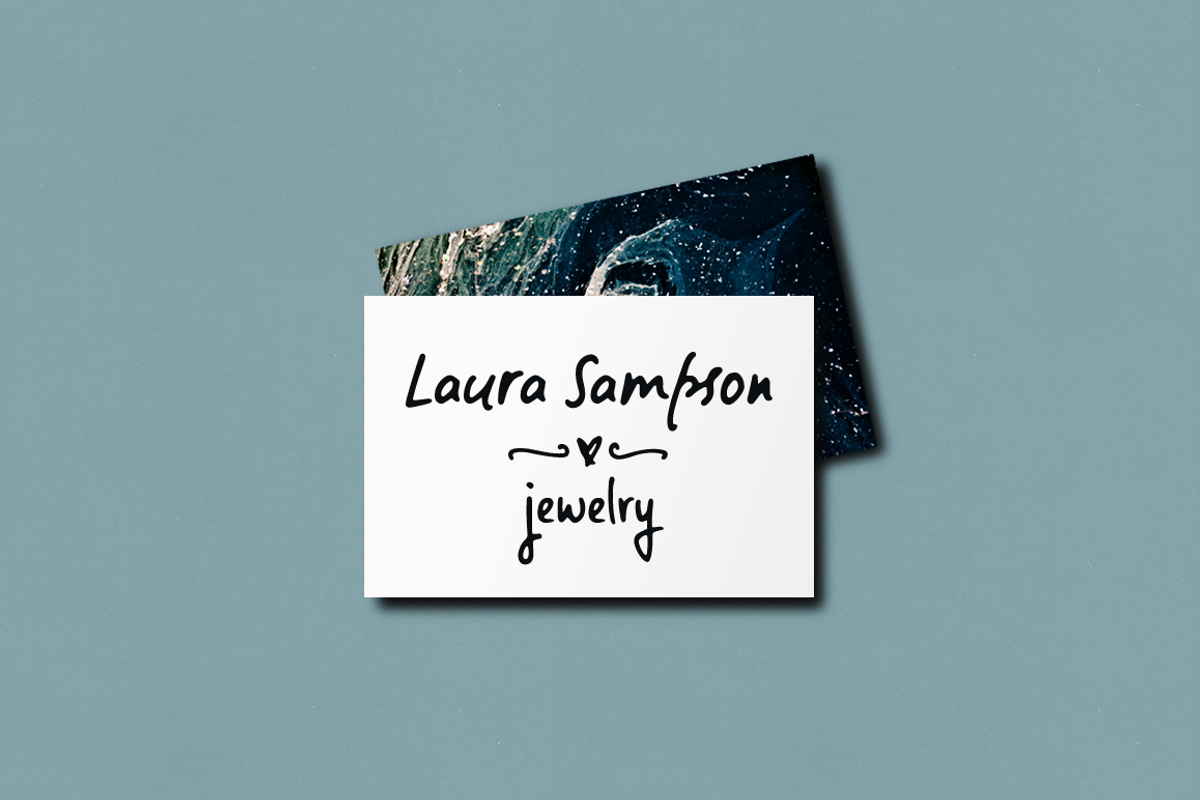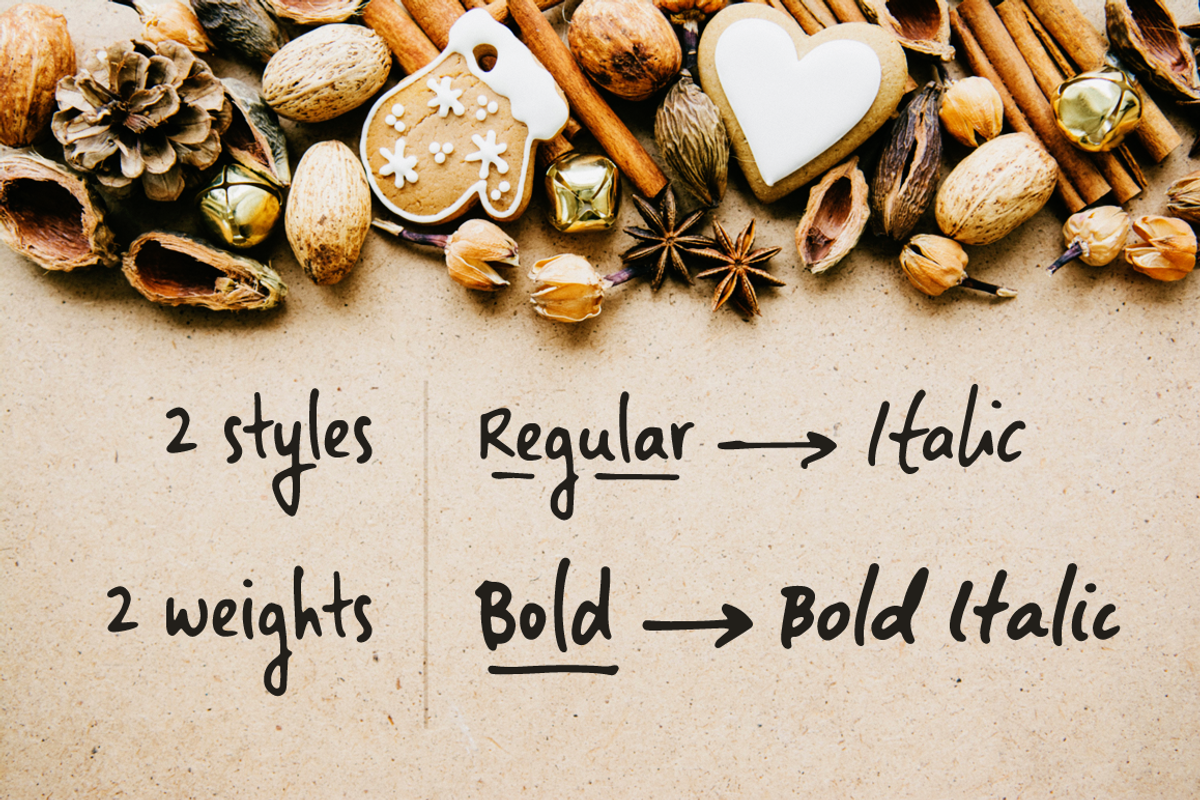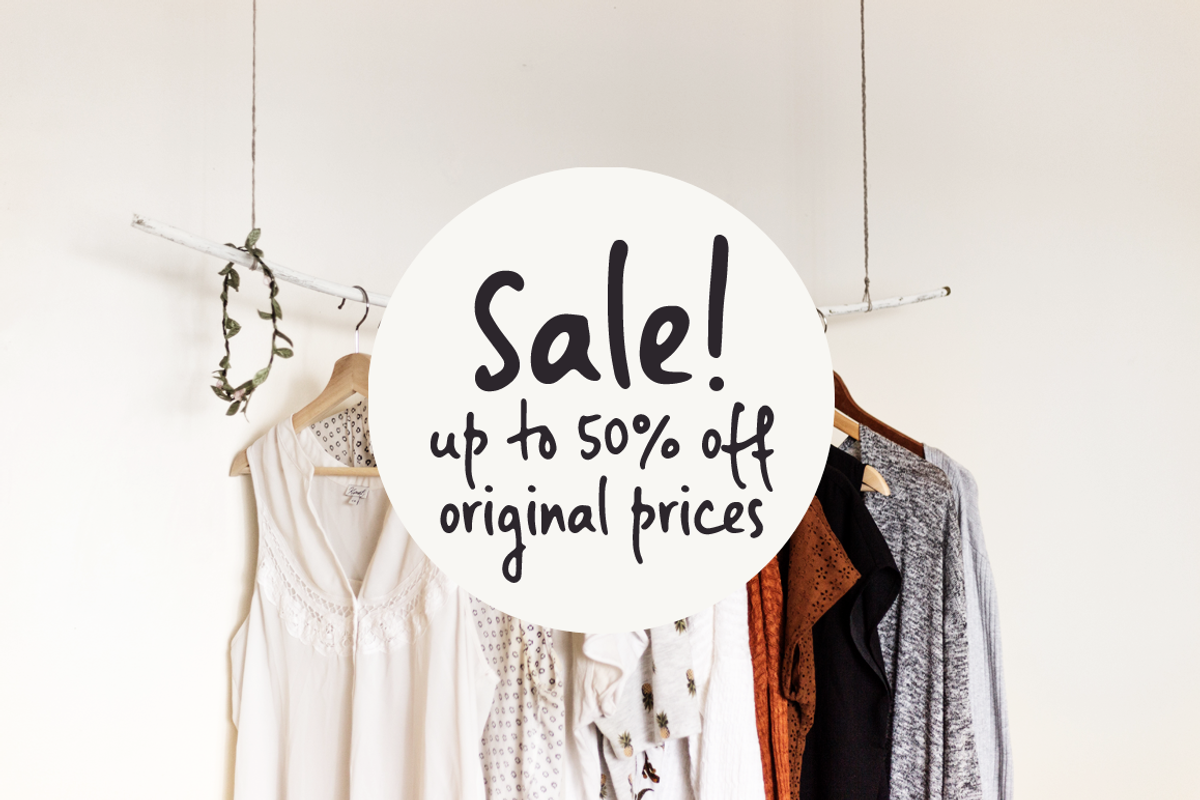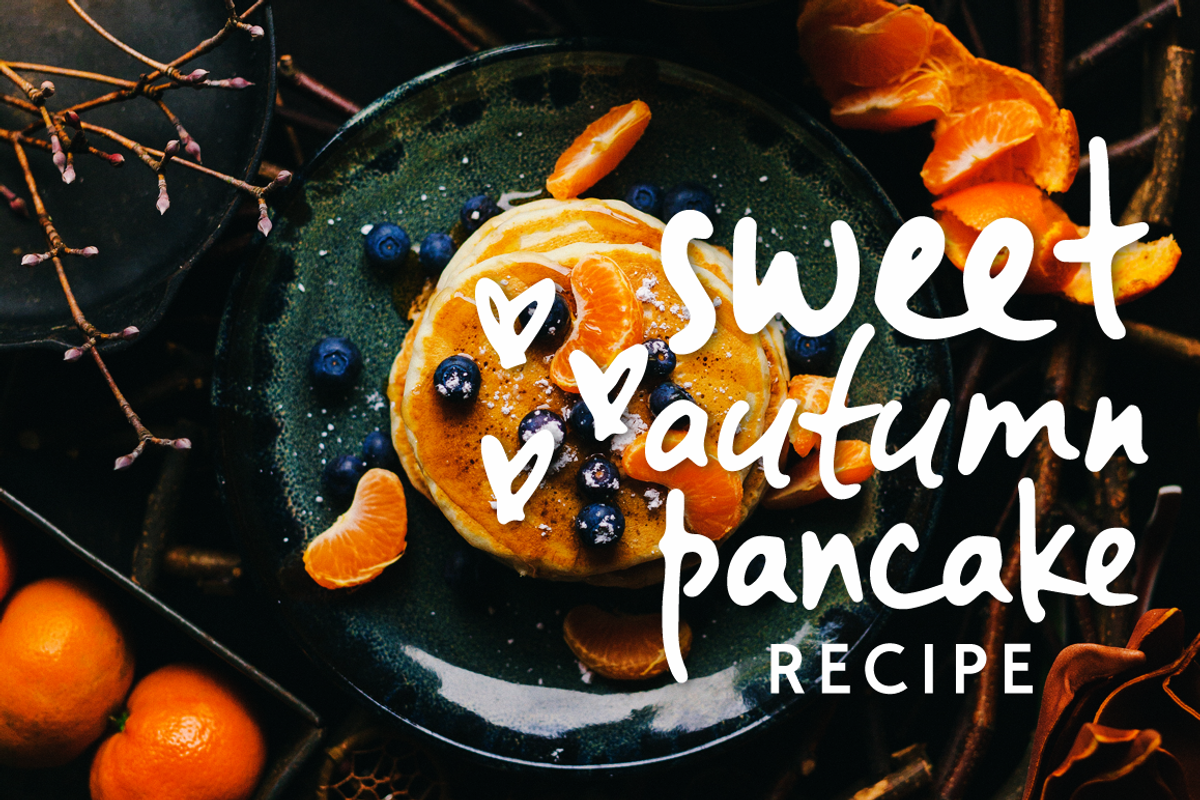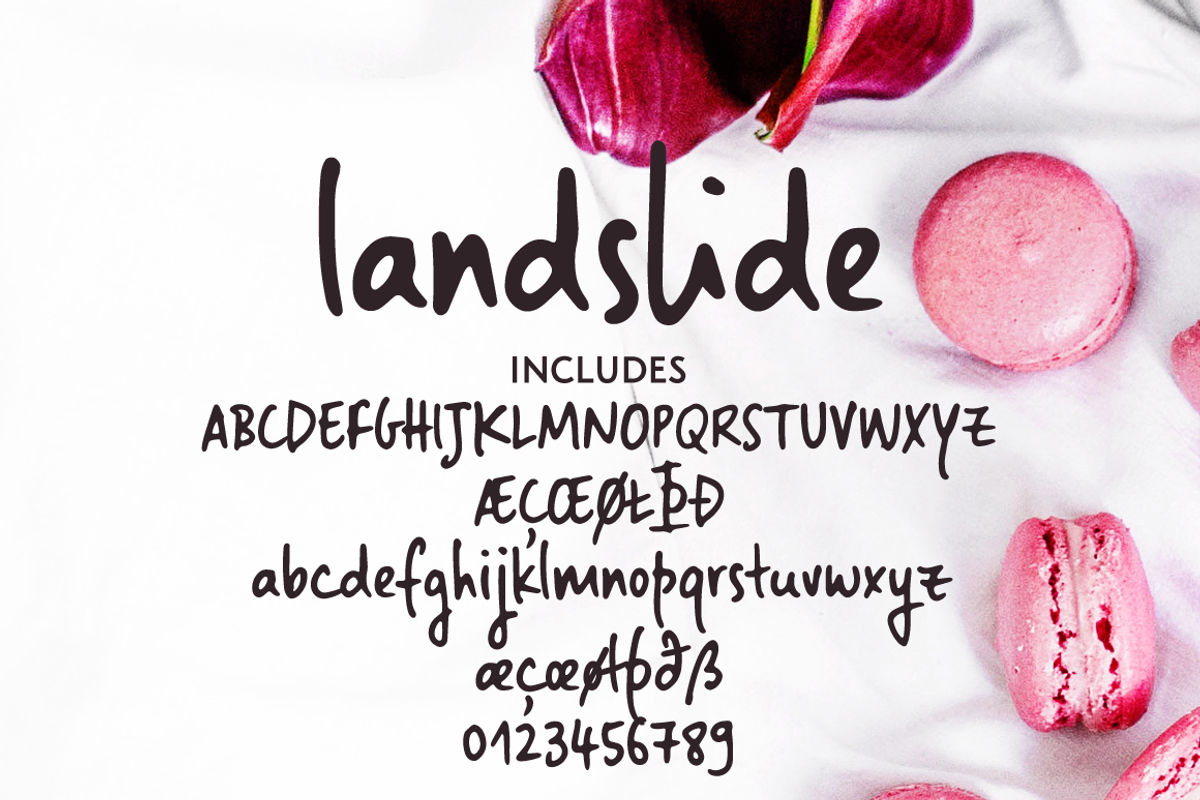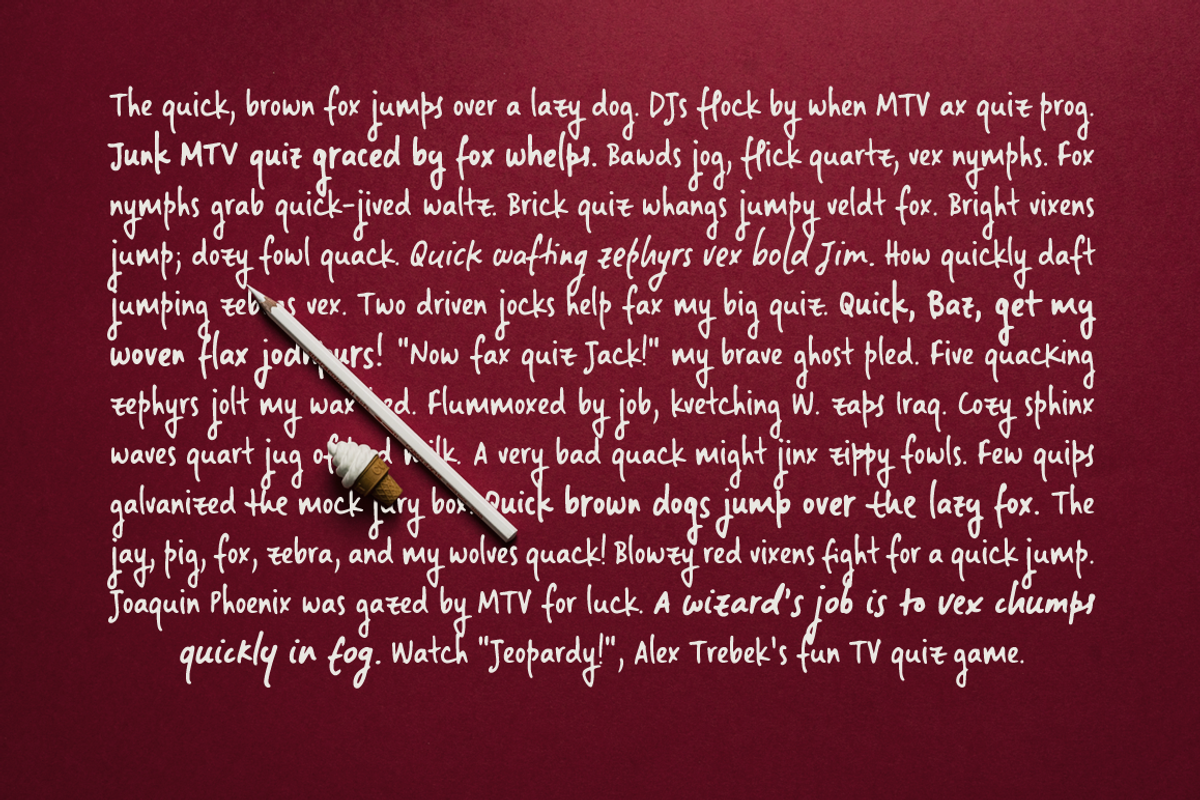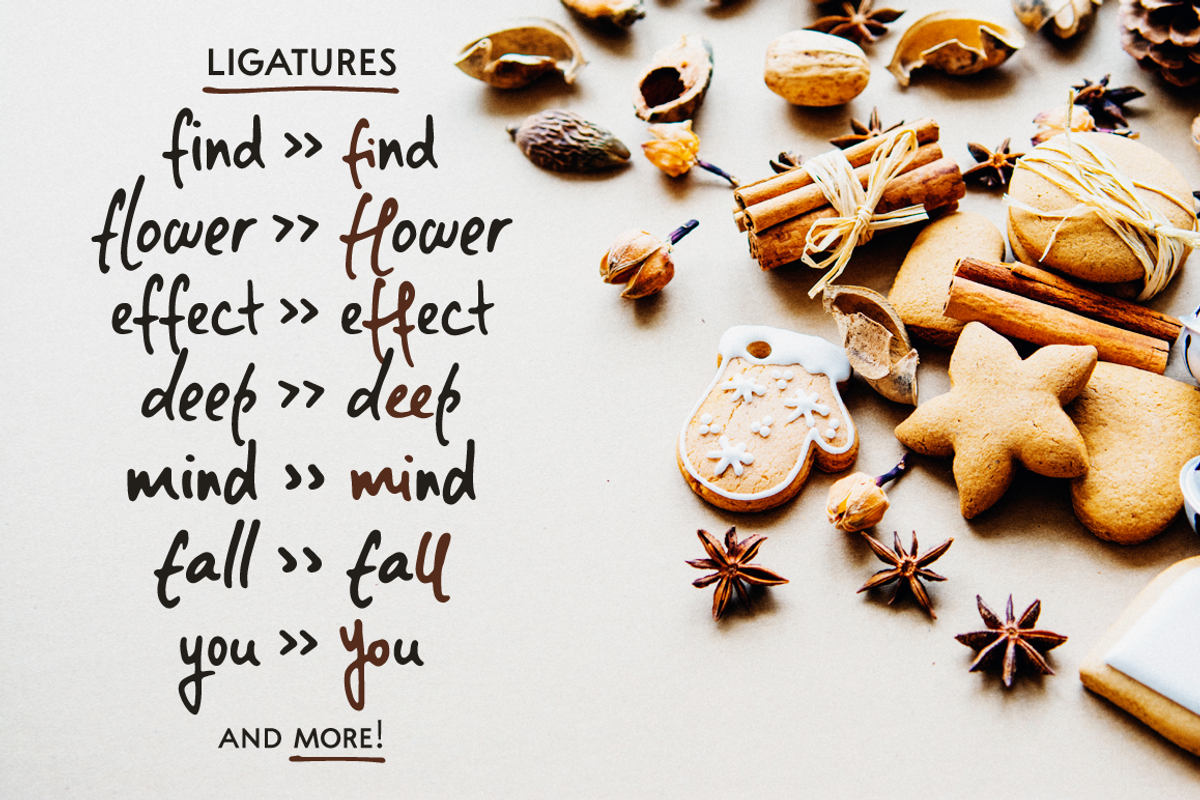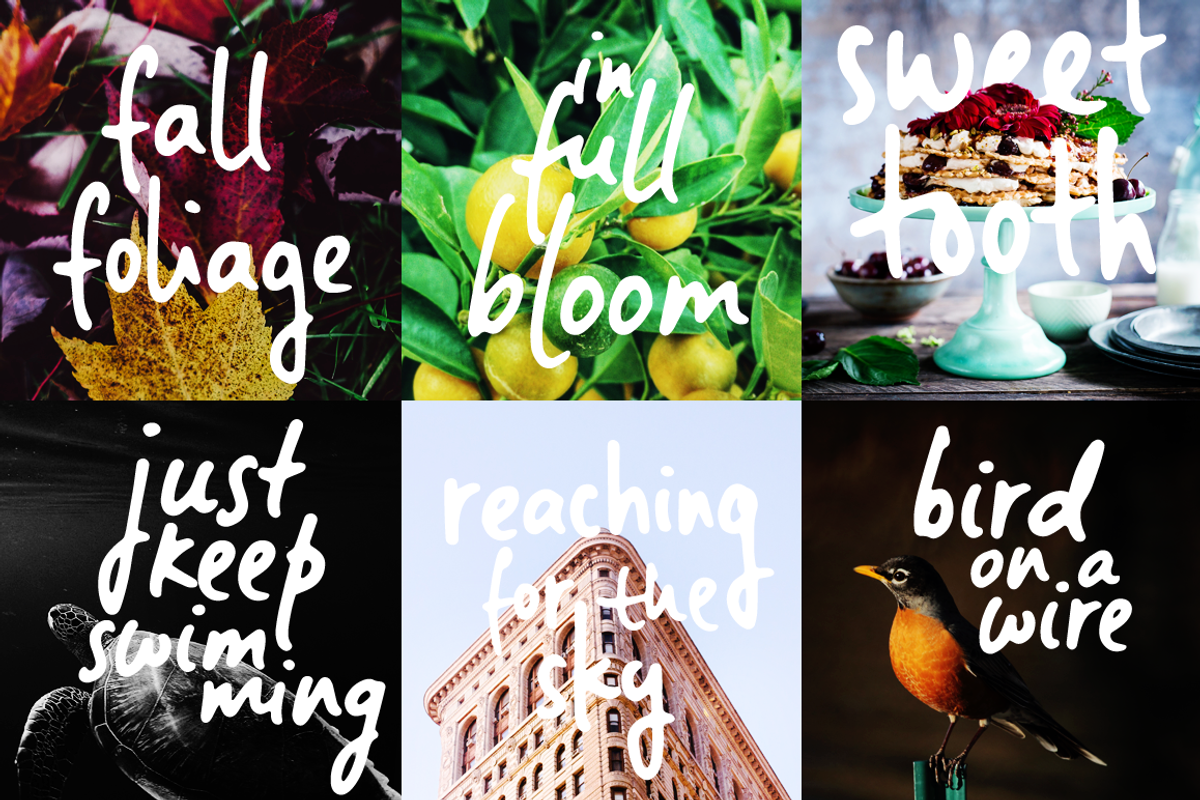
Landslide handwritten sans font
Landslide is a cute handwritten font family with:
- 4 fonts: regular, bold,italic and bold italic, each hand-drawn separately for a true handwritten feel
- plus! a bonus set of ornaments (A-Z, a-z and 0-9) to help decorate your text
Each font includes:
- A-Z, a-z, 0-9, accents punctuation and symbols
- tons of ligatures
Landslide is perfect for any design that needs a handwritten feel, such as signatures, notes and quotes, logos and branding.